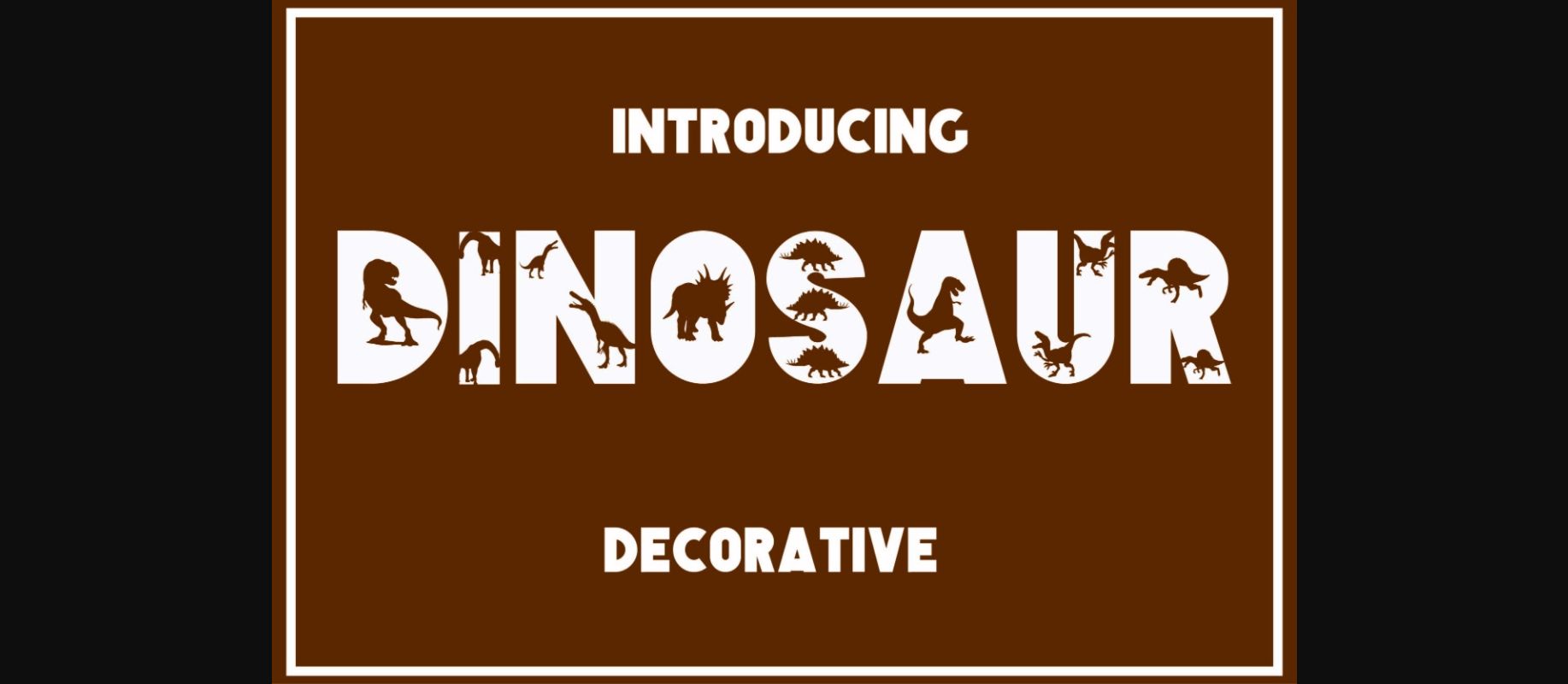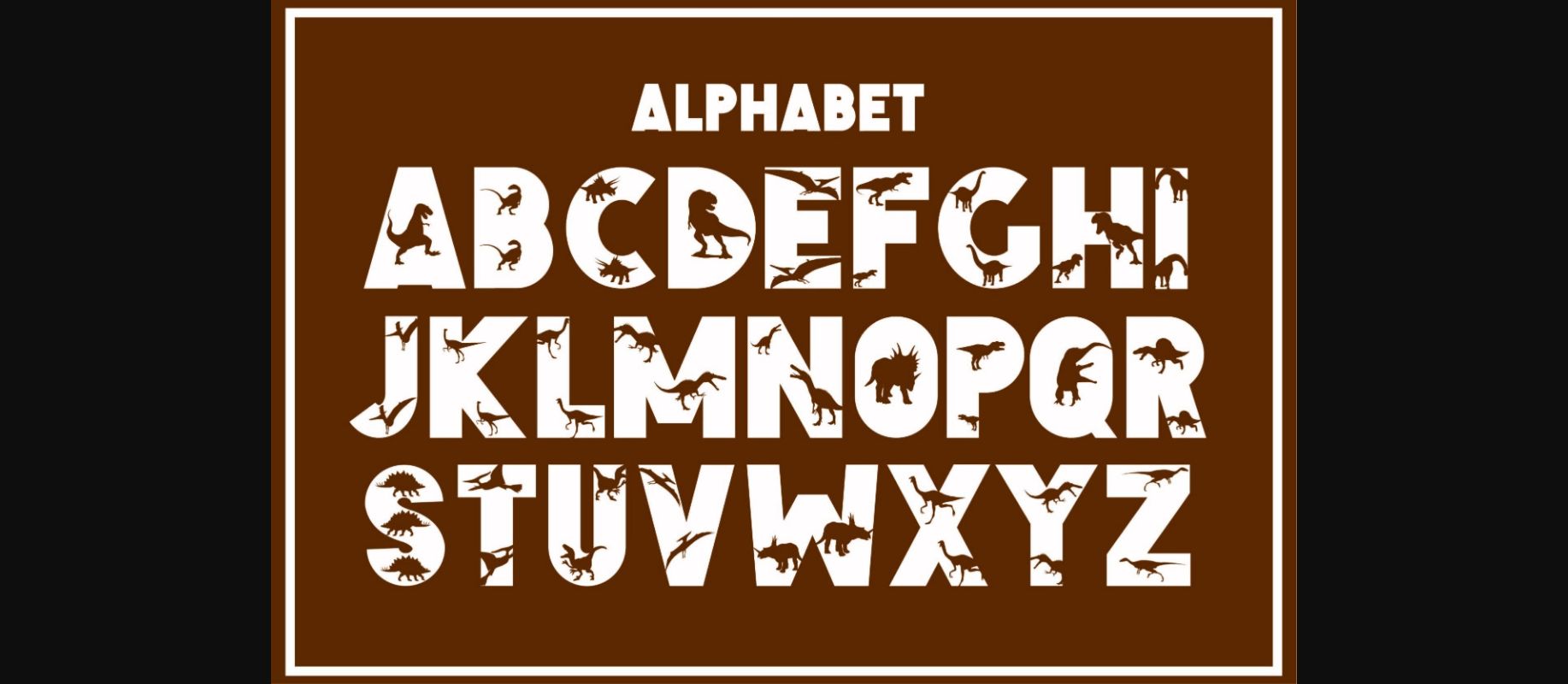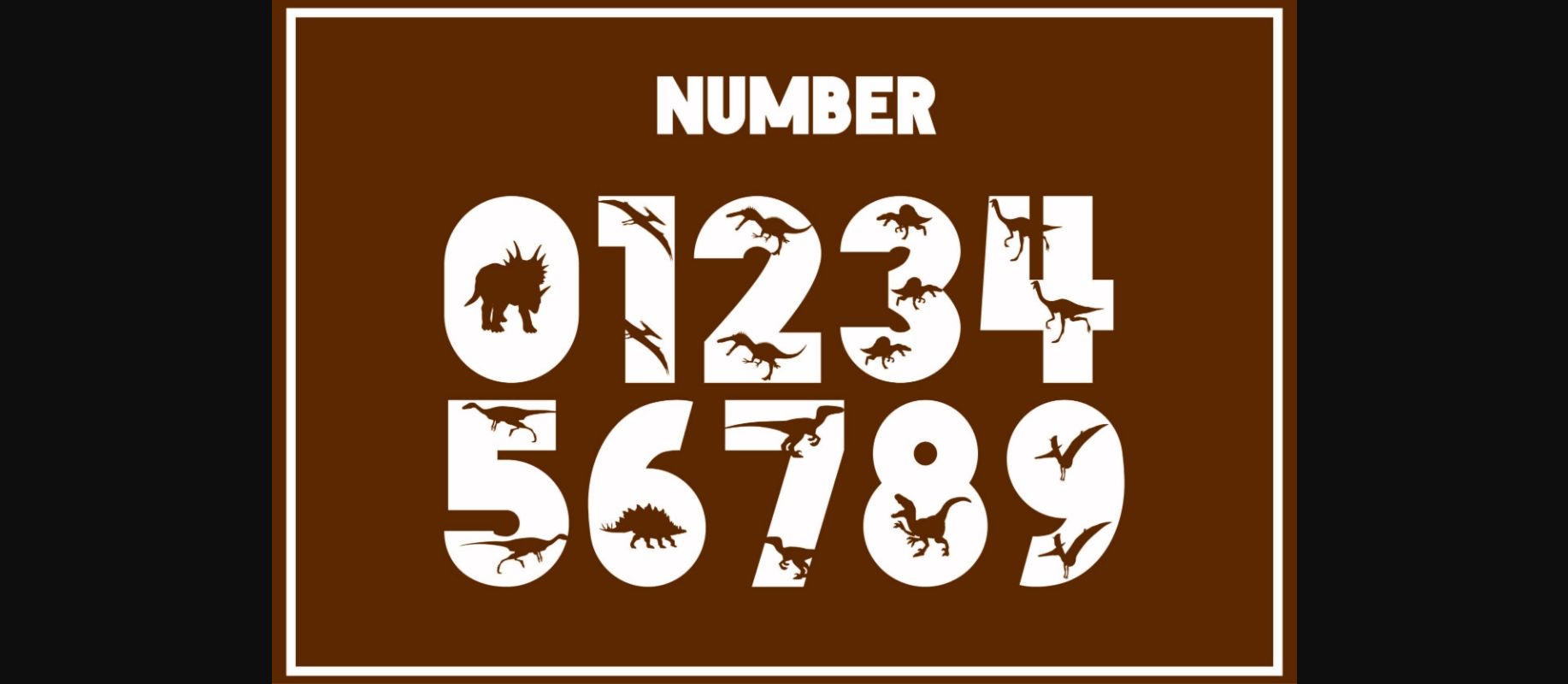
Dinosaur Font
About Dinosaur Font
Dinosaur is a cool and fun decorative font. It looks both cute and jolly and it will enhance each of your designs. The only limit is your imagination. Add this playful font to your creative ideas and notice how it makes them come alive!